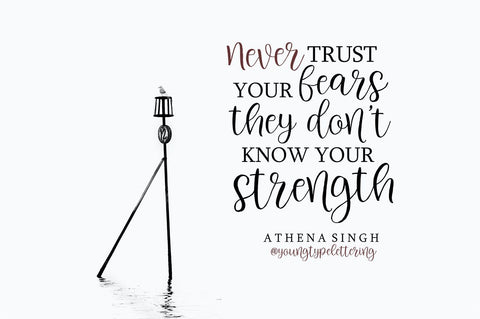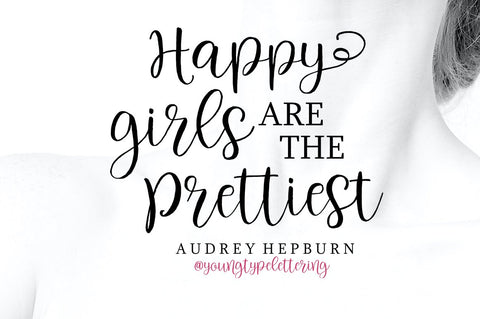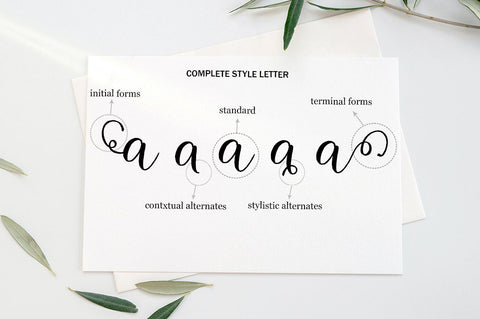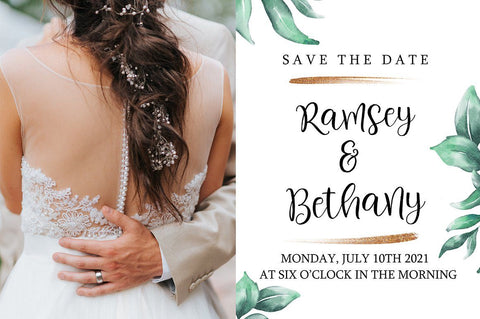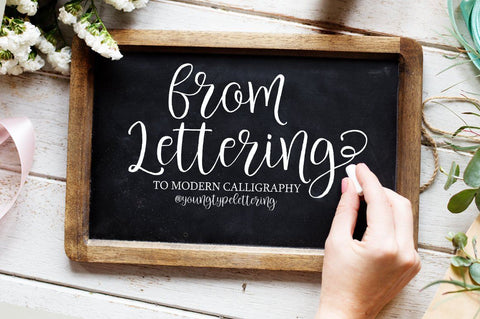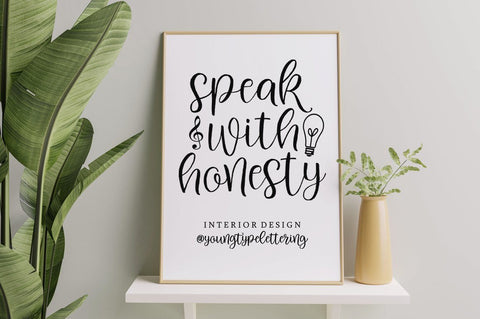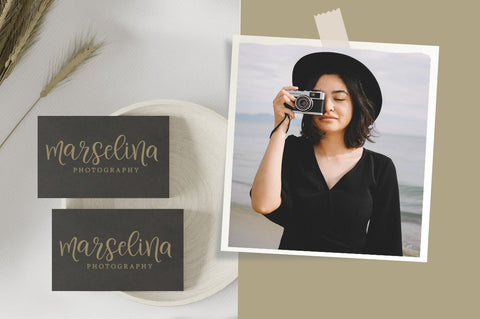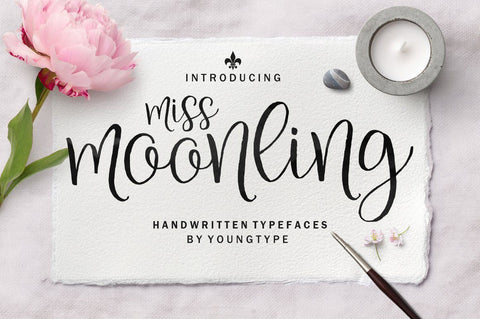
Miss Moonling
Miss Moonling is a hand brush font made with brushes and ink. This typeface is ideal for use in thick watercolor designs or handwriting styles, such as blog titles, posters, wedding elements, t-shirts, clothing, book covers, business cards, greeting cards, branding, merchandise etc.